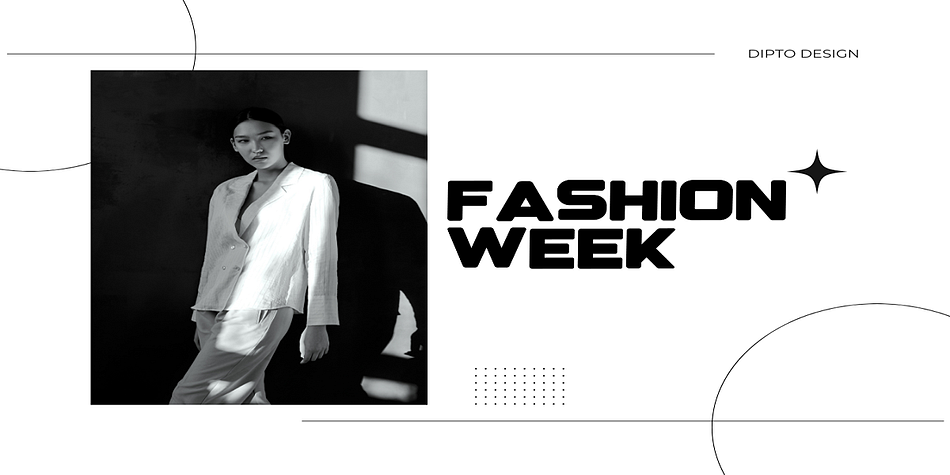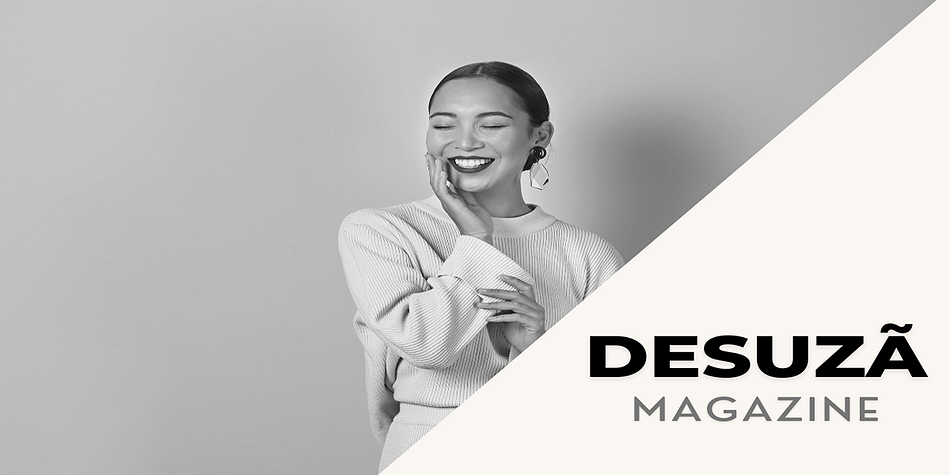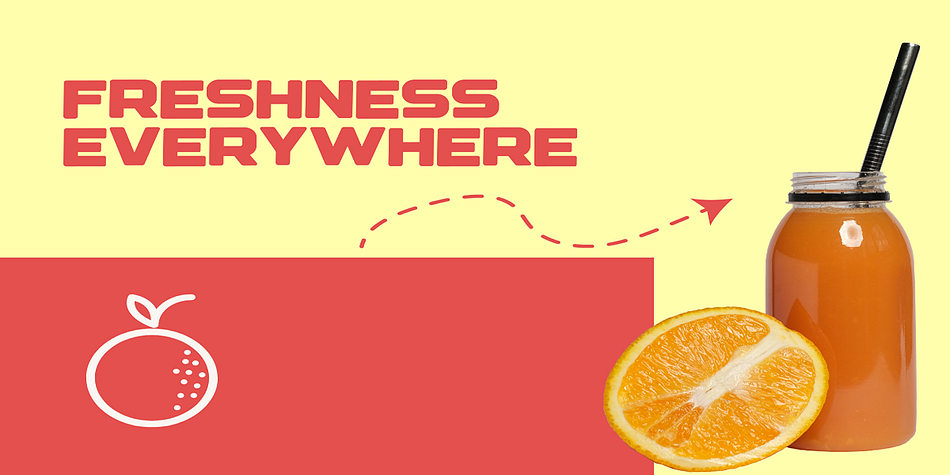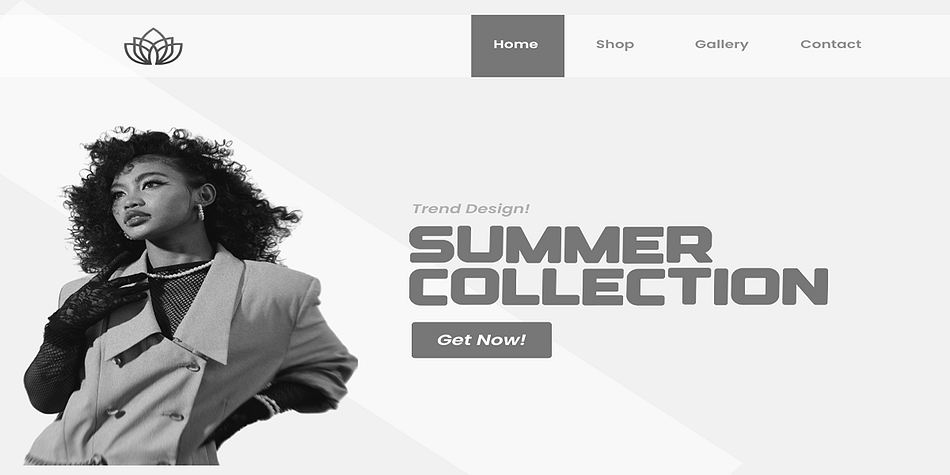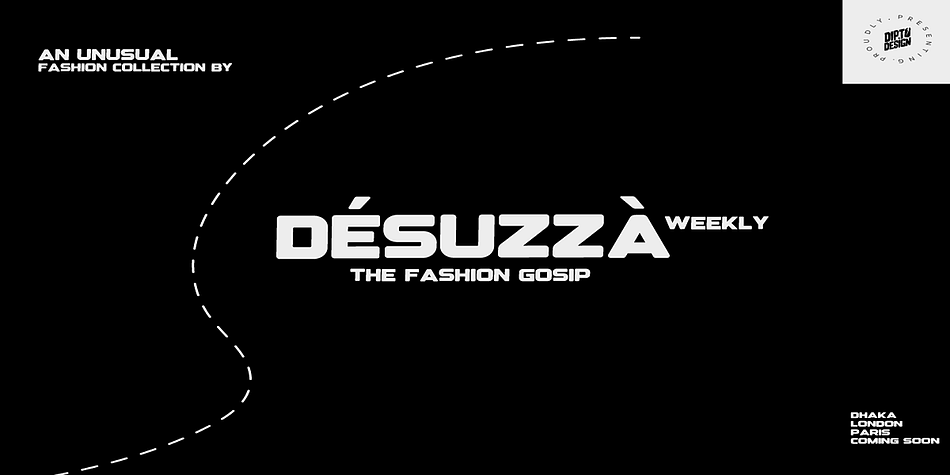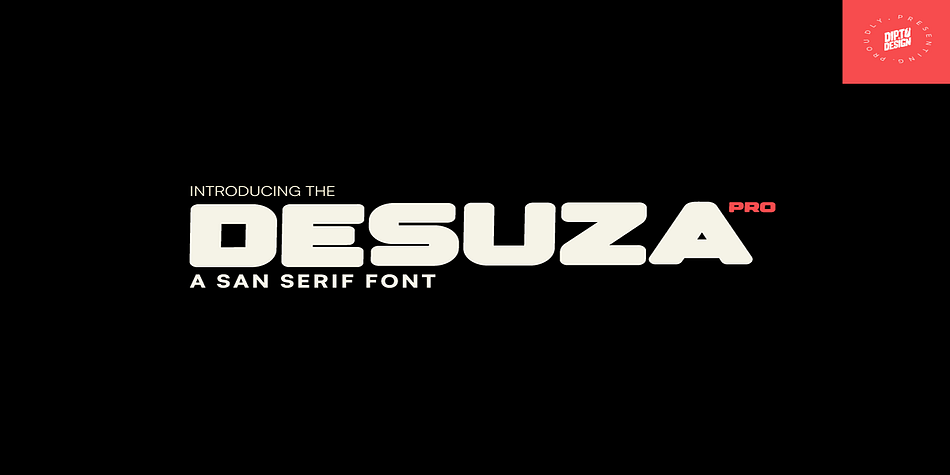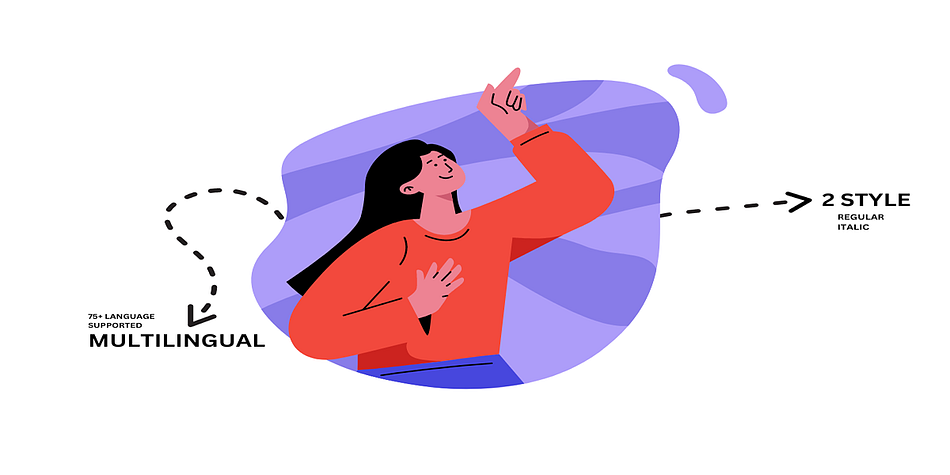
DESUZA PRO
Desuza Pro is a display sans font family. This typeface has two styles and was published by Dipto Design.
DesuzaPro isn’t for the faint of heart. It’s a bold, sans serif font designed to make a statement. Its thick strokes and unwavering presence exude confidence and authority, perfect for brands that demand to be seen and heard.
Imagine headlines that leap off the page. Envision posters that stop viewers in their tracks. DesuzaPro doesn’t blend in; it cuts through the noise with its powerful presence.
Crafted for maximum impact, DesuzaPro is ideal for logos, marketing materials, packaging, and anywhere that needs a bold declaration.